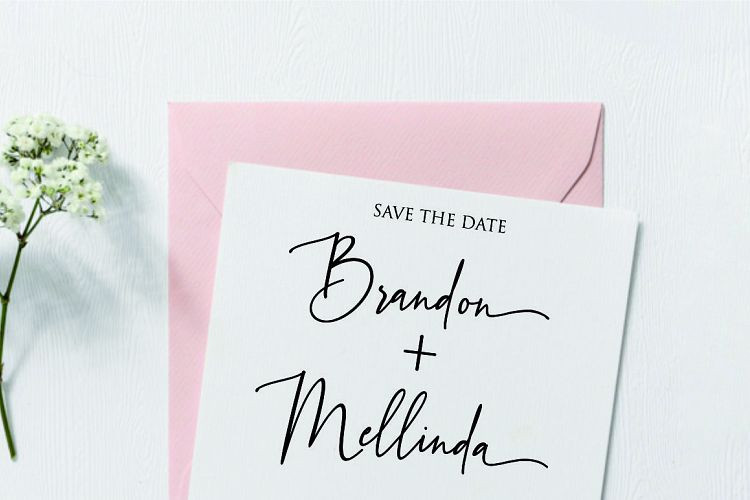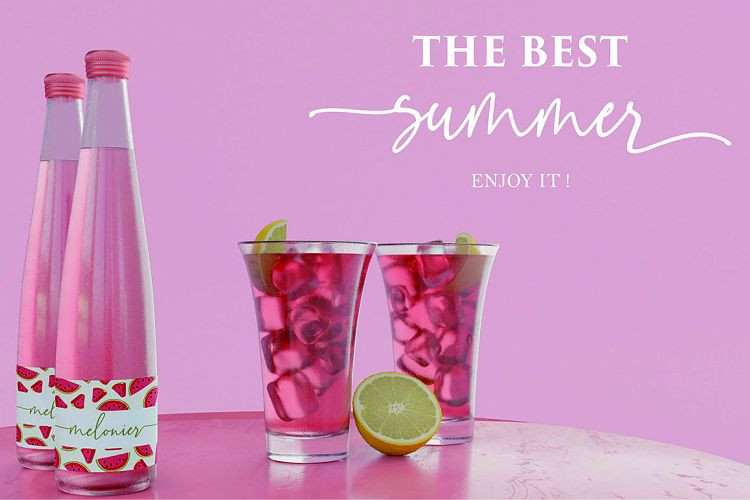
Beauty Boutique Script Font
Beauty Boutique Script Font by AV Type 19,987 downloads
Beauty Boutique is a chic, refined script font that emanates sophistication and elegance. Its stylish alternates and ligatures make this font the perfect match for any project. This font is PUA encoded which means you can access all of the beautiful glyphs and swashes with ease!